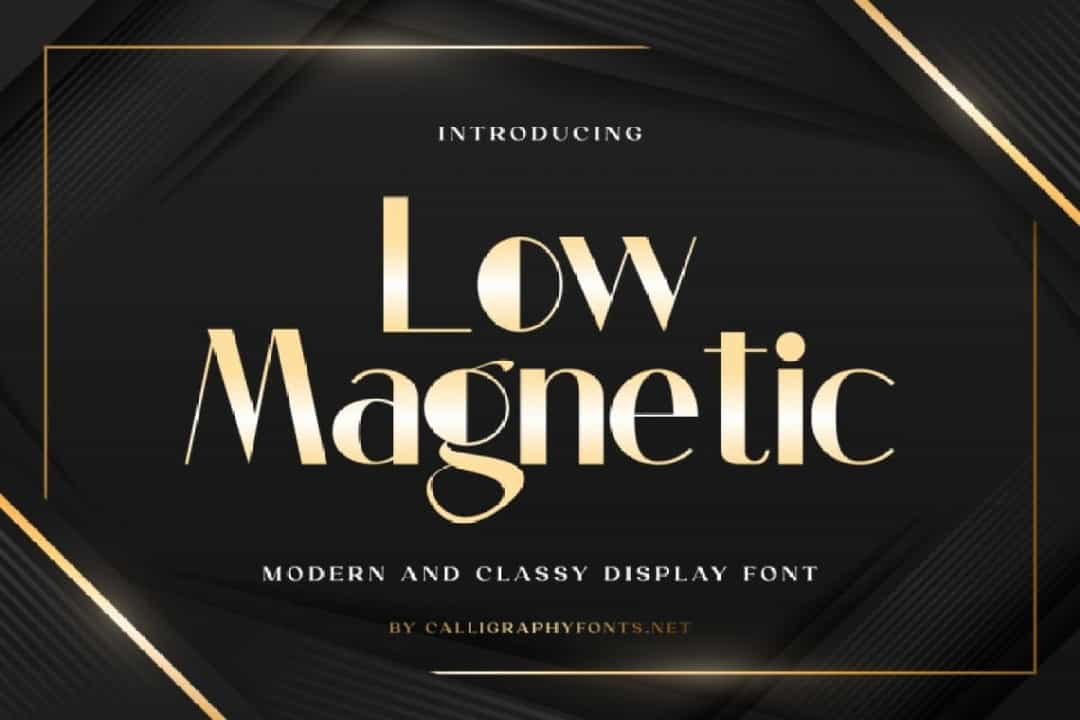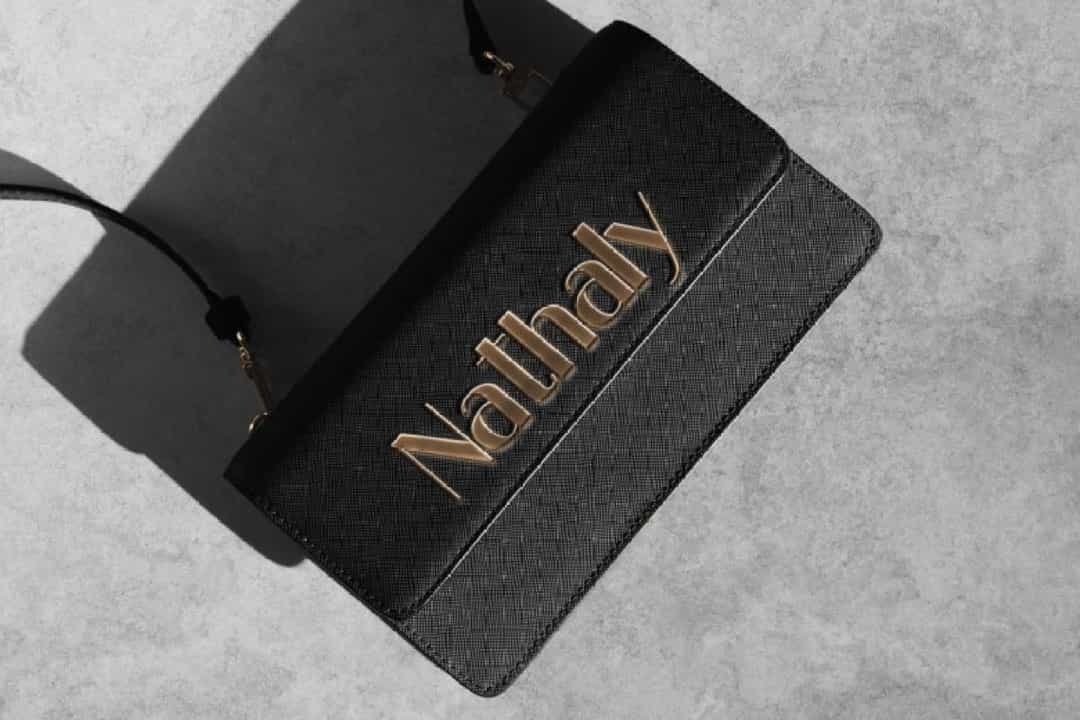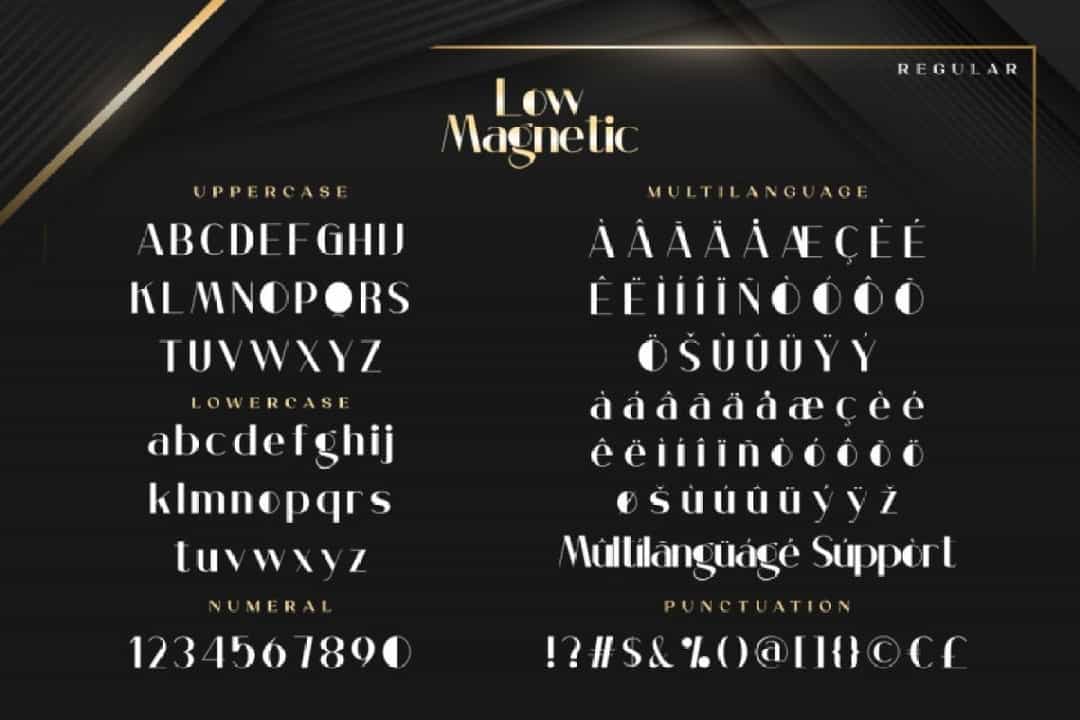
Discover Low Magnetic Font, part of the Sans Serif Display collection—a versatile and unique font perfect for adding a personal touch to your projects. Download it for free and enjoy crafting designs with style, from invitations to social media posts. This font is available exclusively for personal use, giving you the freedom to create without limits. Unlock your creativity with Low Magnetic Font today!
Low Magnetic is an elegant Display Font in sans serif style developed by CalligraphyFonts, designed for creative projects including billboards and custom designs, packaging heading, label and logo usages, magazines printed materials stationary projects T-shirt quotes etc.